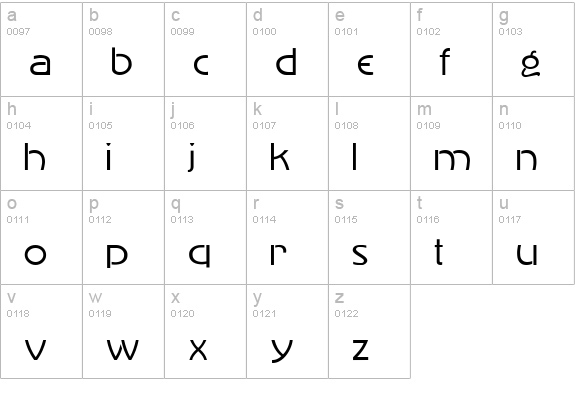
AdvertisersGothicLight-Regular is the standard, neutral variant in the AdvertisersGothicLight typeface family \xE2\x80\x94 well suited to general body text, paragraphs, and standard typographic work.
Adorn your designs with the captivating elegance of AdvertisersGothicLight-Regular font. This versatile typeface exudes a sense of modern sophistication while maintaining a classic appeal. Its clean lines and crisp letterforms make it perfect for a wide range of design projects, from branding to editorial layouts. And the best part? AdvertisersGothicLight-Regular is available for free download at FontsMarket.com! Don't miss out on the opportunity to enhance your creative endeavors with this stunning font that effortlessly blends style and readability. Download it today and elevate your designs to new heights with AdvertisersGothicLight-Regular font.